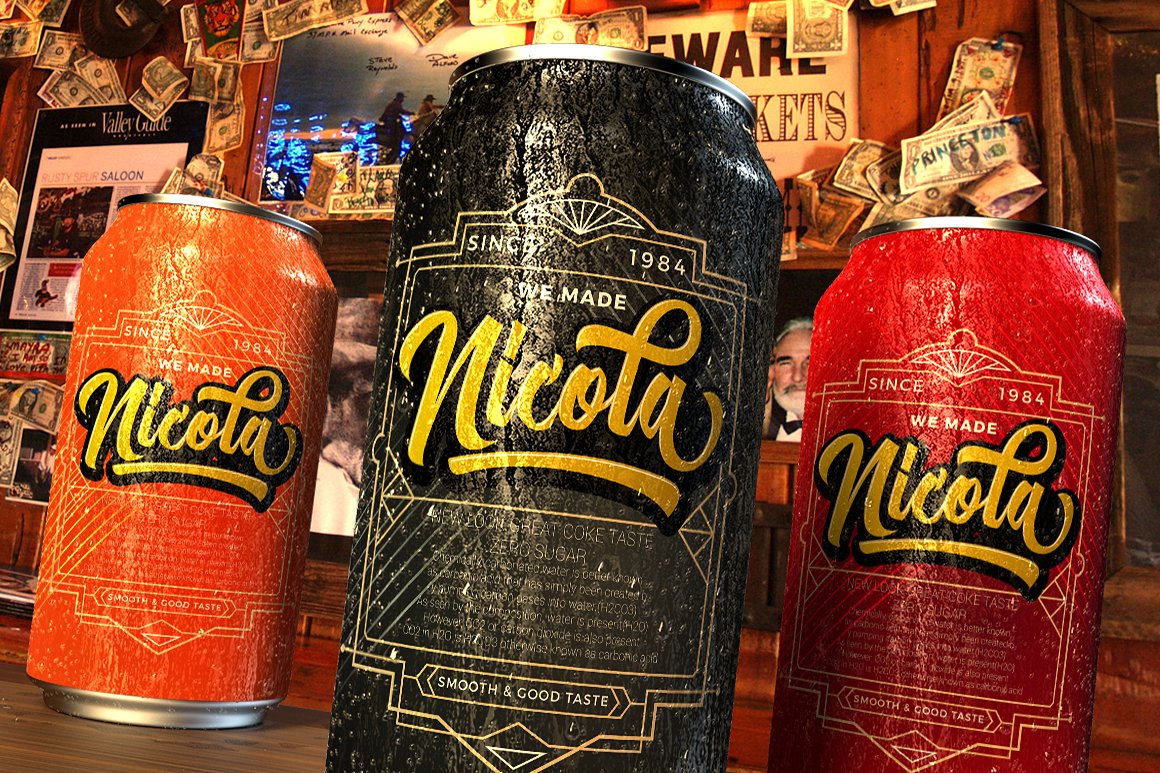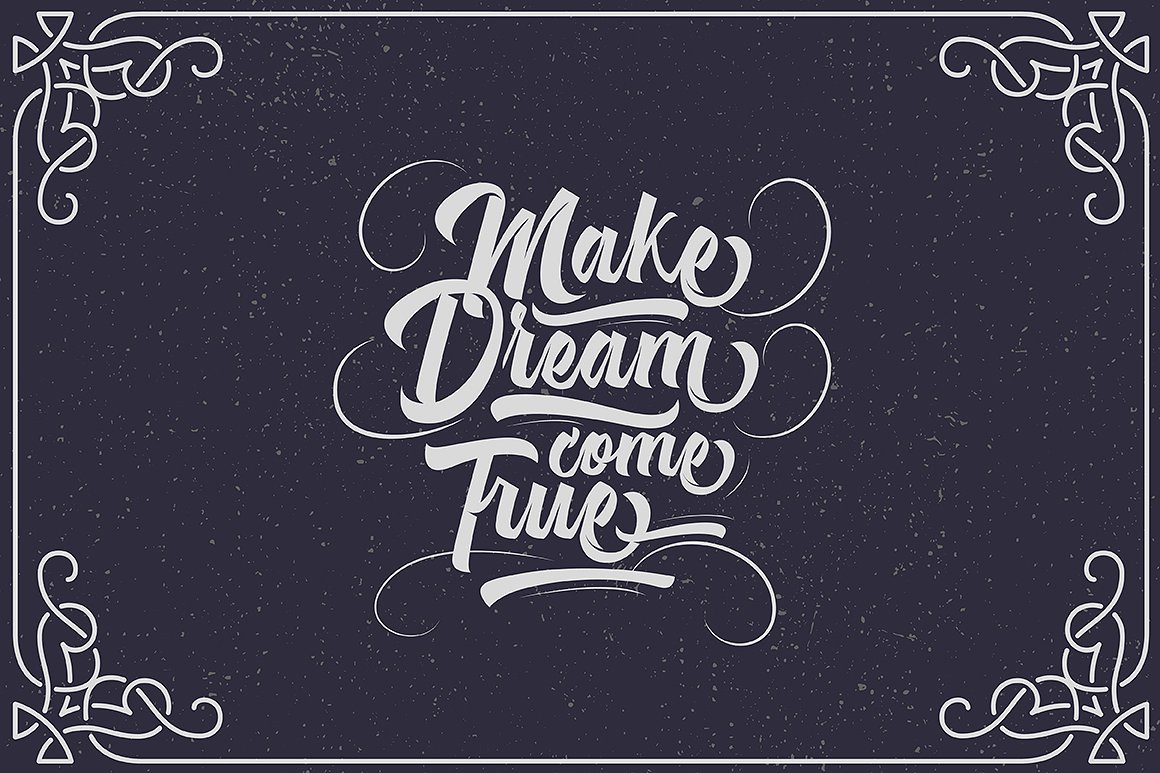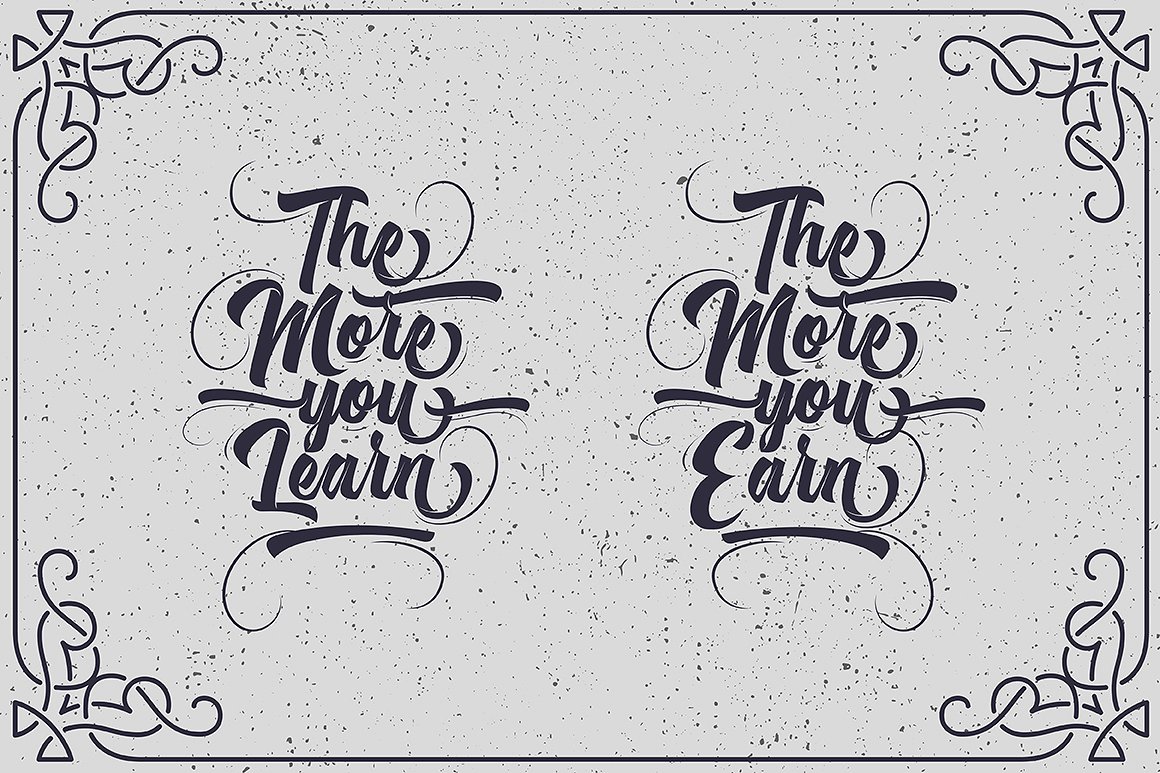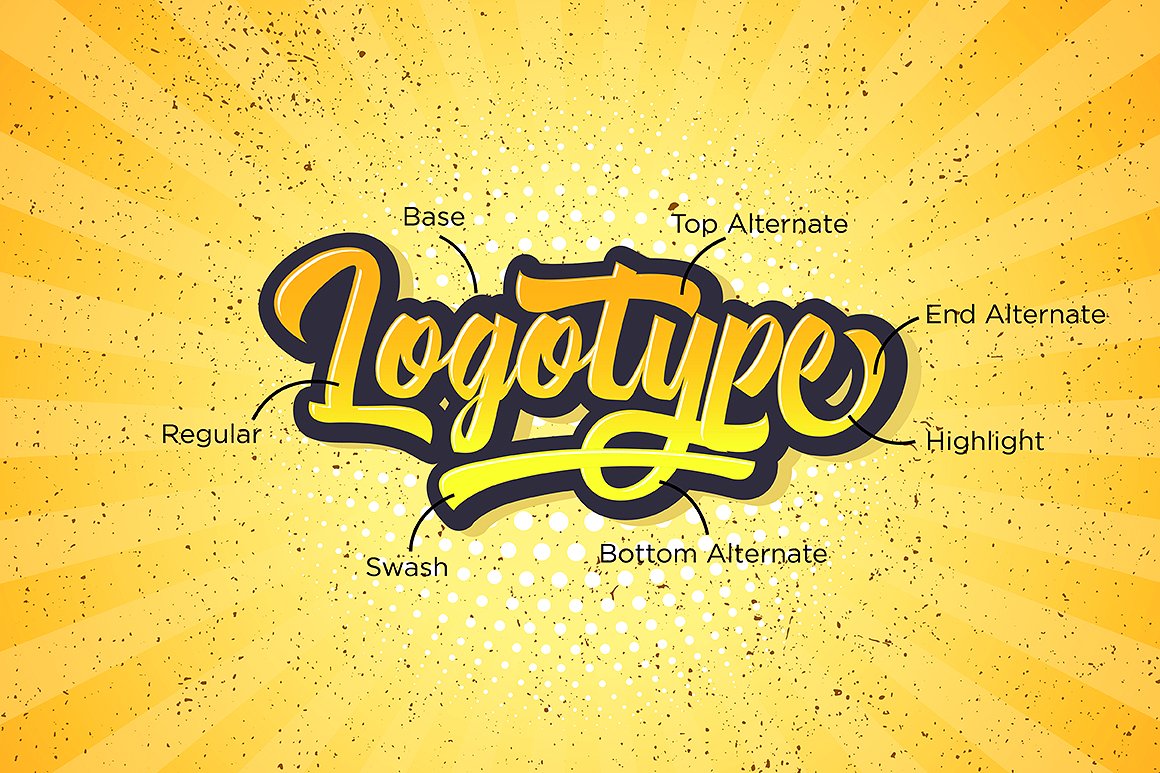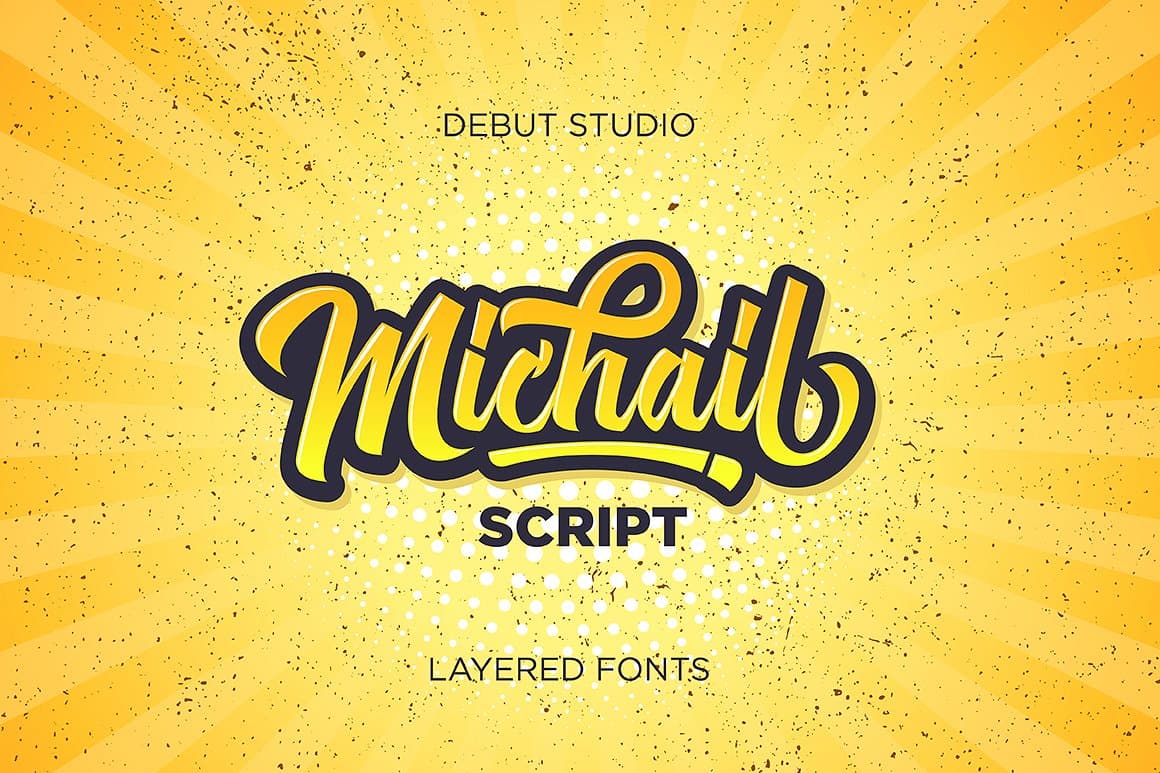
Michail Script Font
Michail – a modern calligraphy typeface. It is designed and shared by Debut Studio. Michail (Layered Fonts) Michail Script has many fonts, the fonts are used with layers method. This font is suitable for young, passionate design, such as logo design, t-shirts, branding, and various other design purposes.